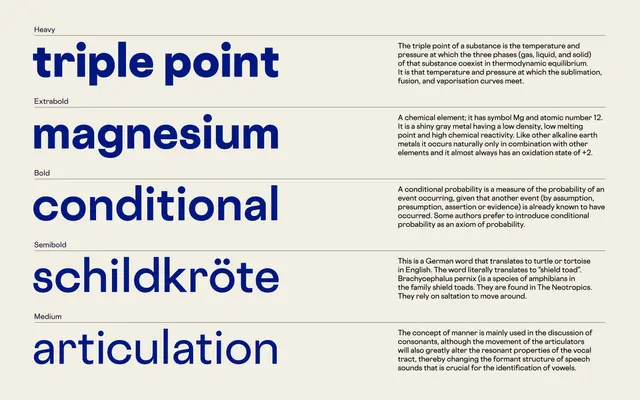
A geometric sans-serif from Labor and Wait spanning nine weights with italics and a companion monospaced variant.
Cosmica runs from Thin to Heavy across nine weights, each paired with a corresponding italic, giving the family considerable range for both text and display use. A separate Cosmica Mono variant extends the system for code or tabular settings. The space-inflected naming aligns with Labor and Wait's broader catalogue of astronomically themed typefaces.
The page content and naming suggest a clean, contemporary sans-serif with geometric underpinnings, suitable for a broad range of weights from Thin to Heavy with matching italics throughout.